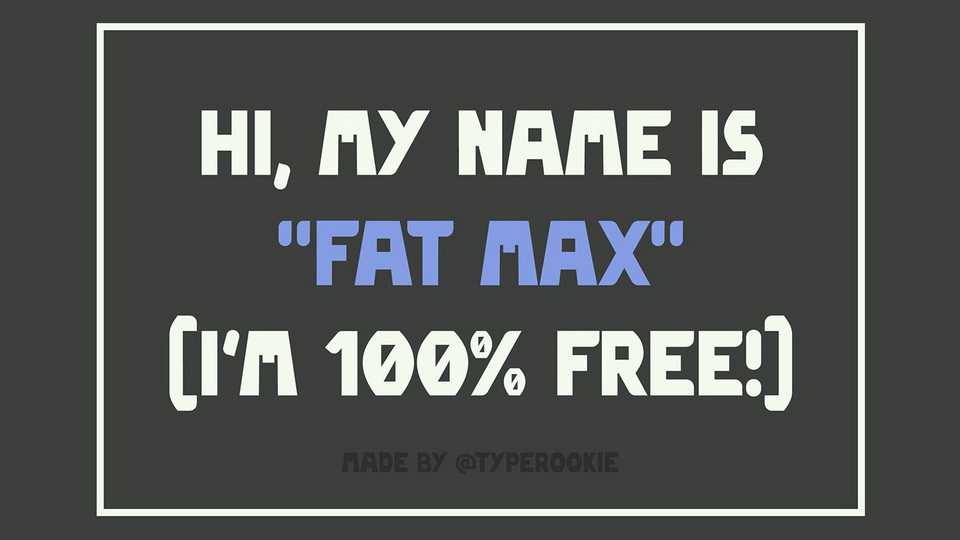
Download Fat Max font, a display typeface created with the purpose of being free for everyone in mind. Hope you’ll find this bold font fitting for your bold message!
Designer: Typerookie